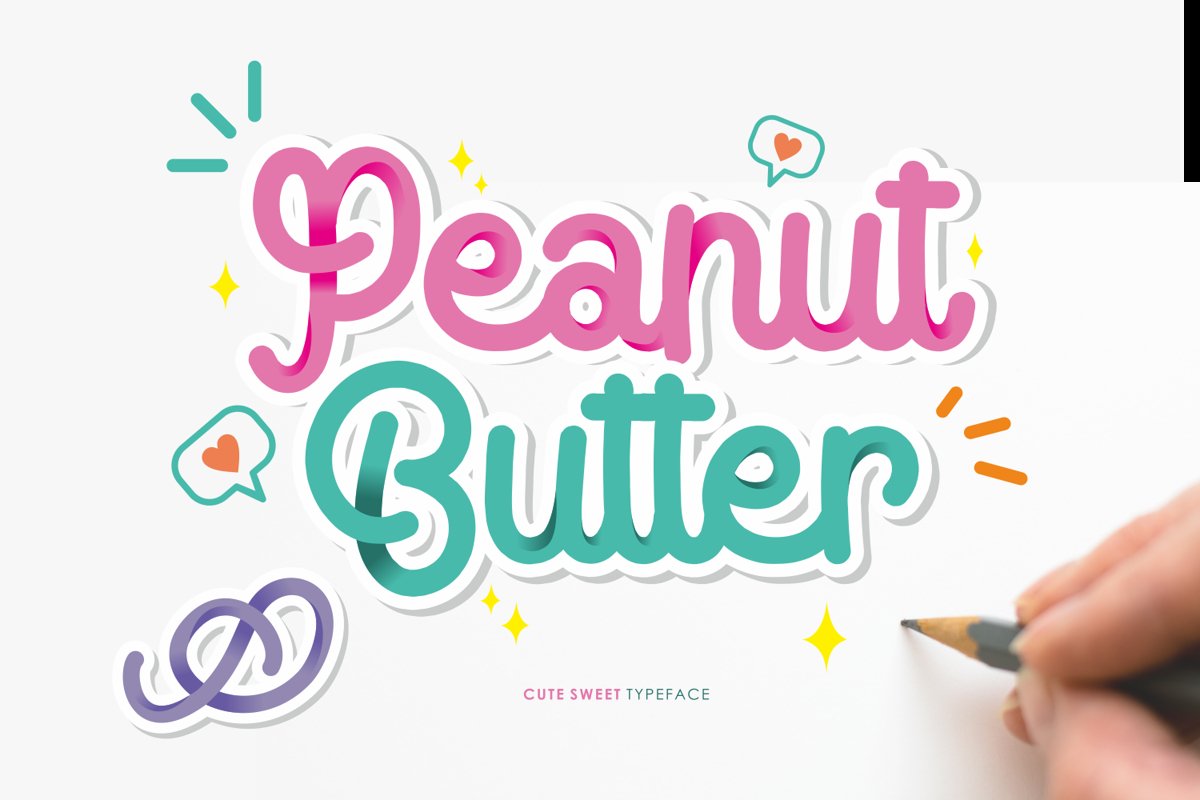
Peanut Butter
Peanut Butter is a playful, sweet, and quirky font that will work perfectly for kids projects or any business that wants to appear fun and playful.
• Numerals & Punctuations (OpenType Standard)
• Stylistic Alternates (ending swash)
• Multilingual characters (AÀÁÂÃÄÅÇEÈÉÊËIÌÍÎÏNÑOØÒÓÔÕÖUÙÜÚÛÝŸÆŒß)